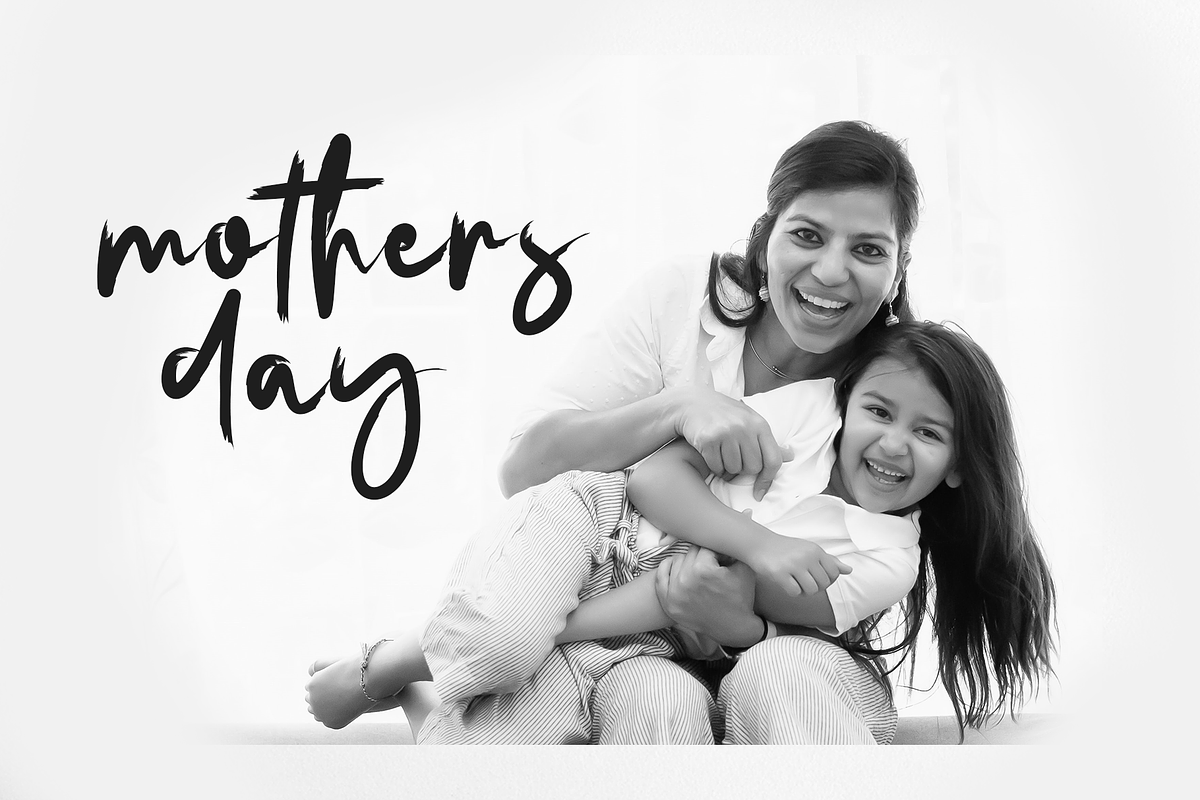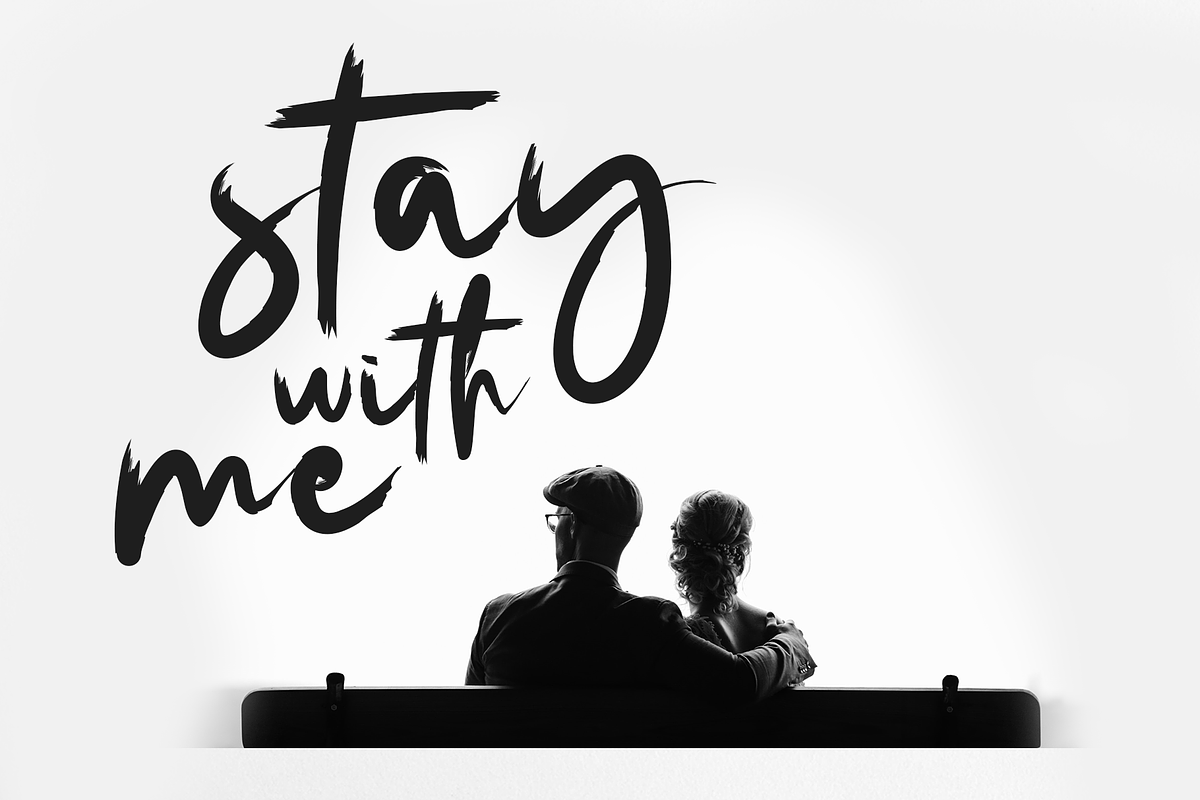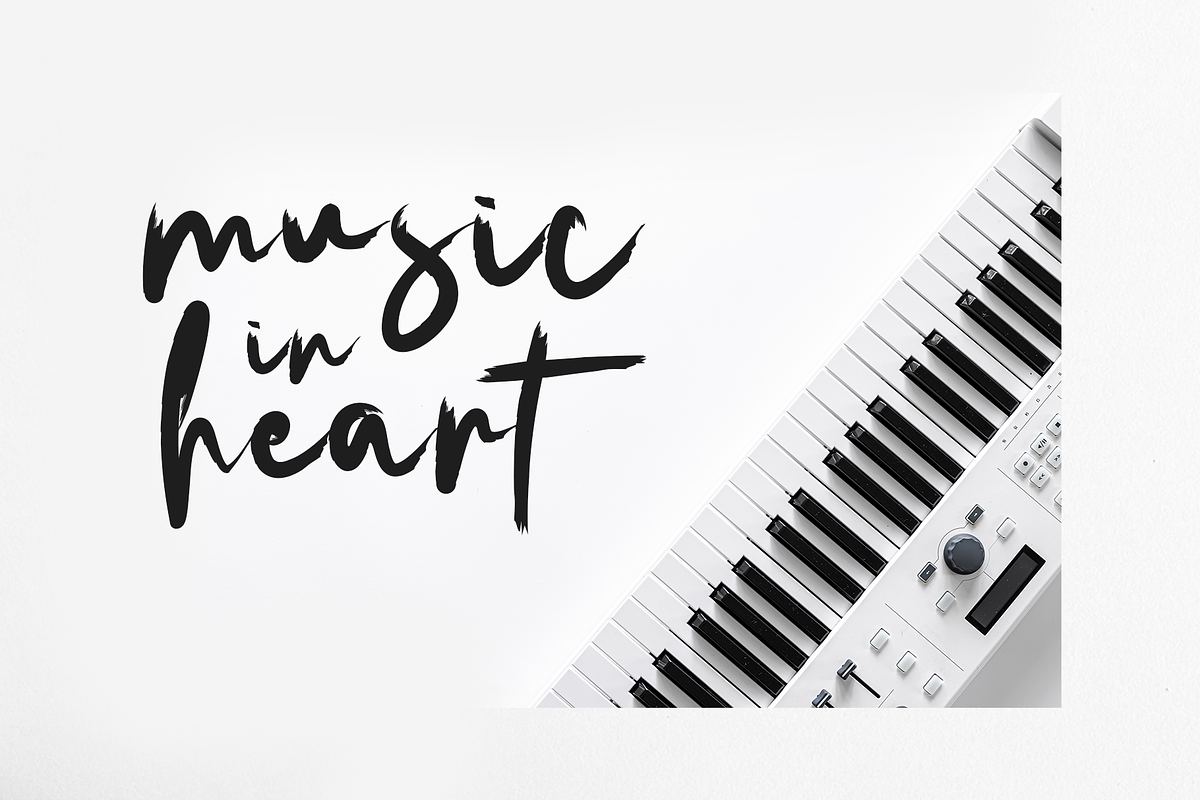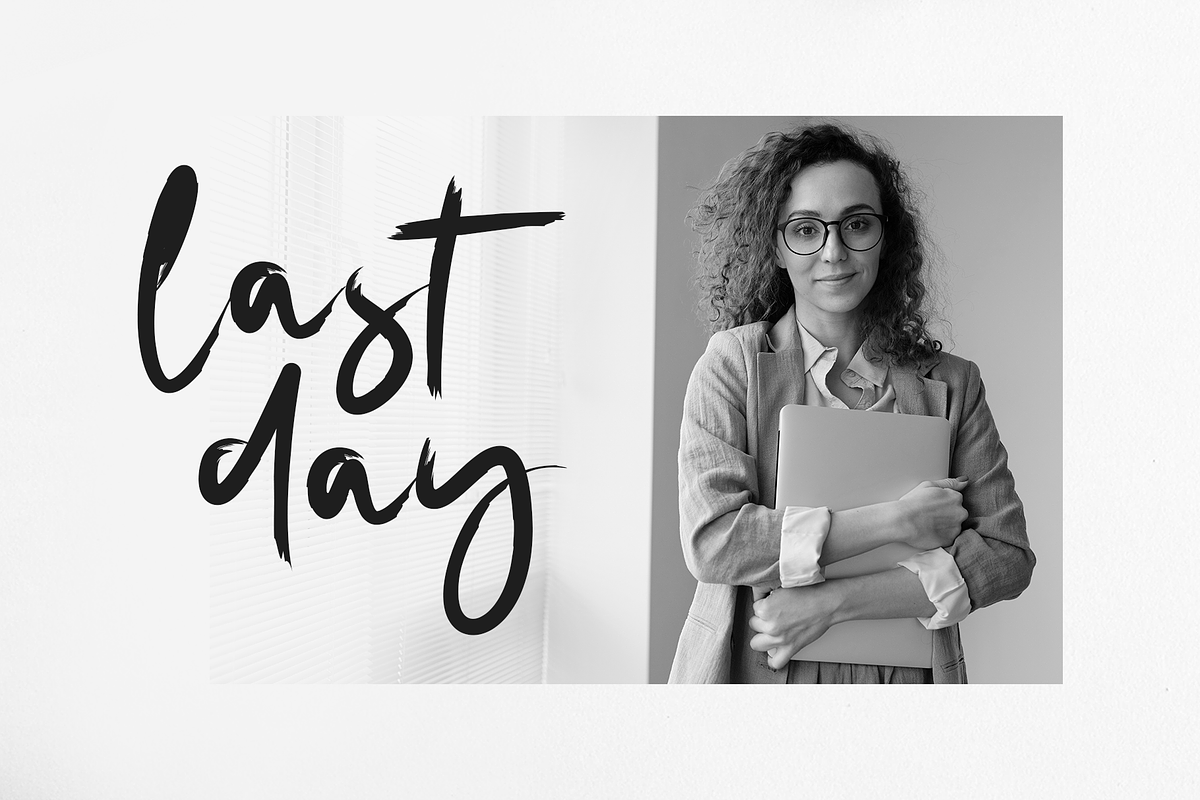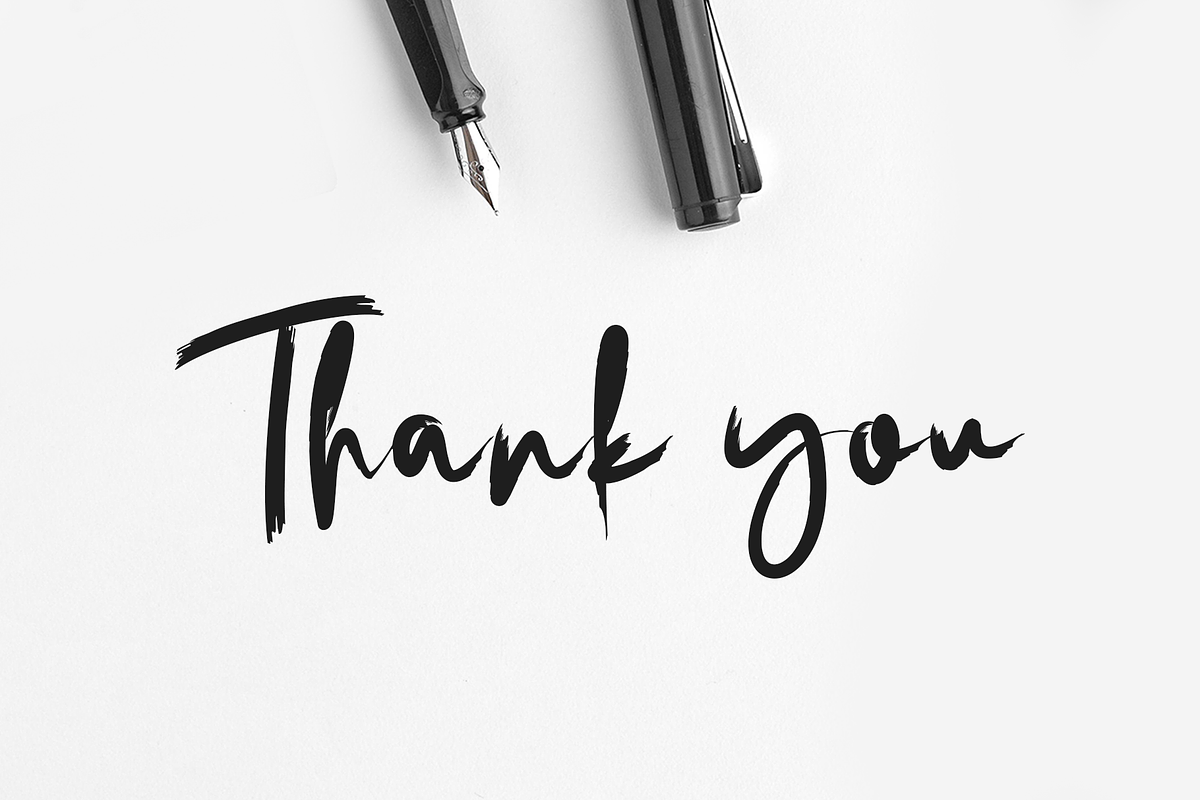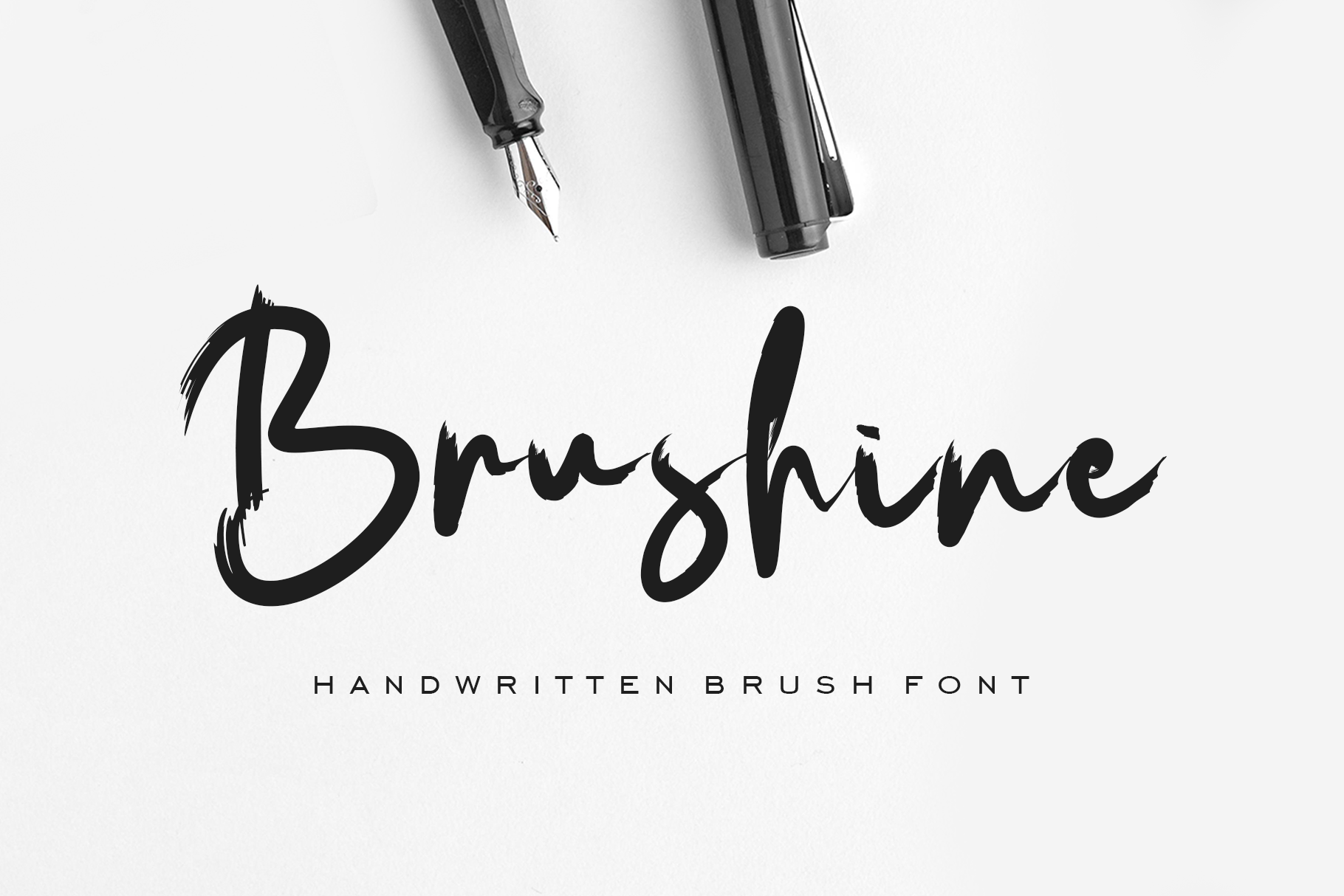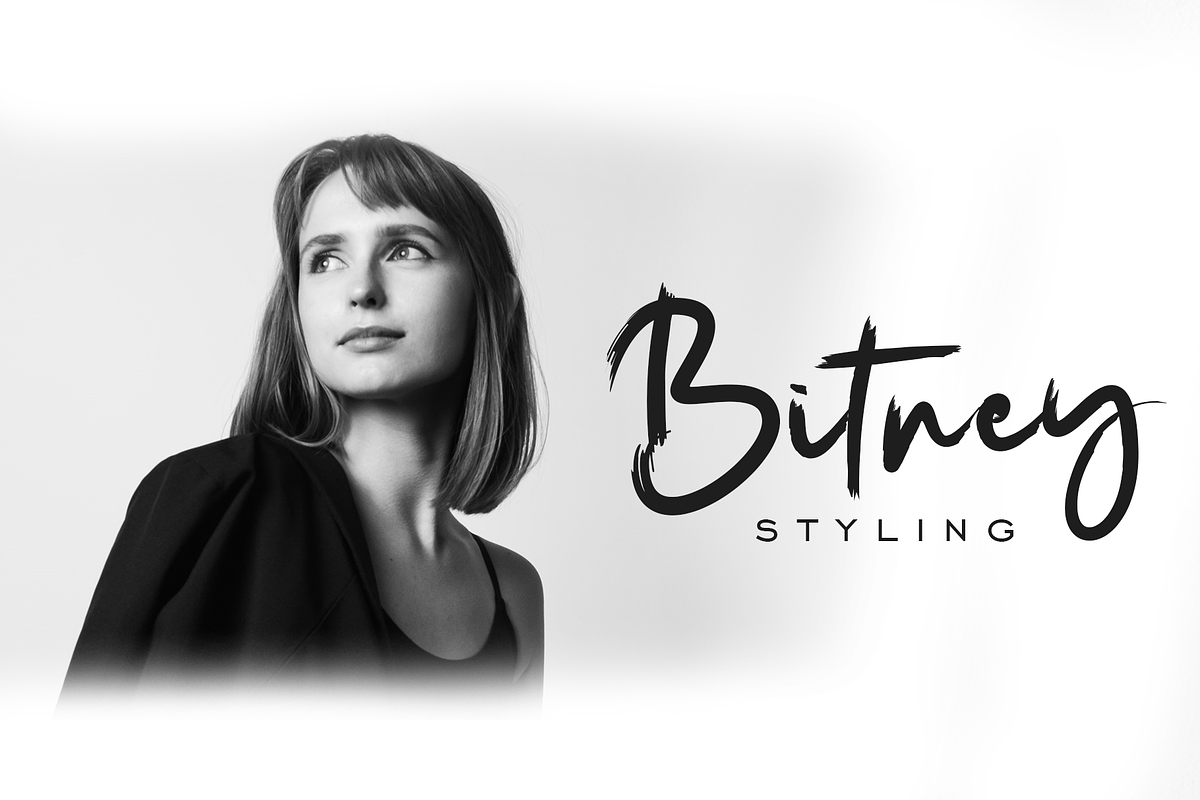
Brushine - Elegant Brush Font
Brushine is an elegant and stylish handwritten brush font. Every pull is very natural and matter-of-fact. it's perfect for any type of work that requires a bold and elegant touch!